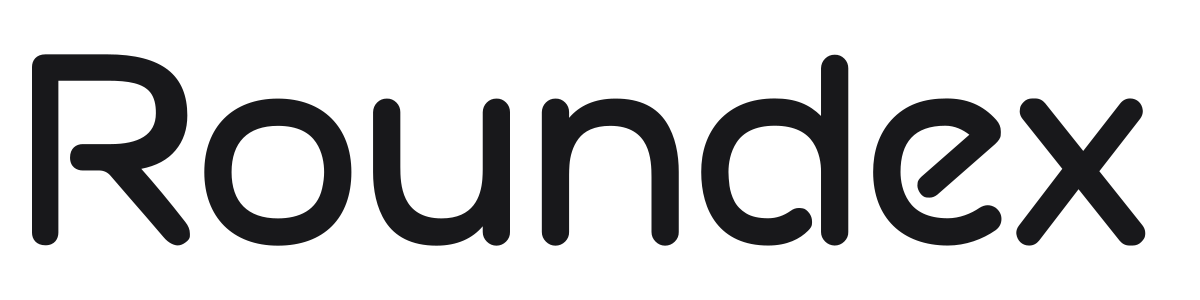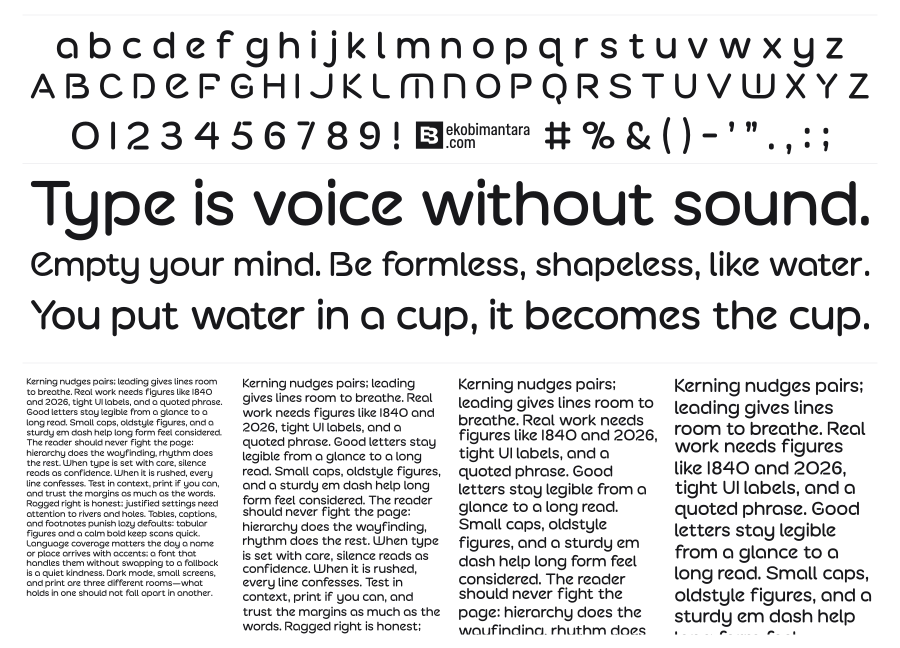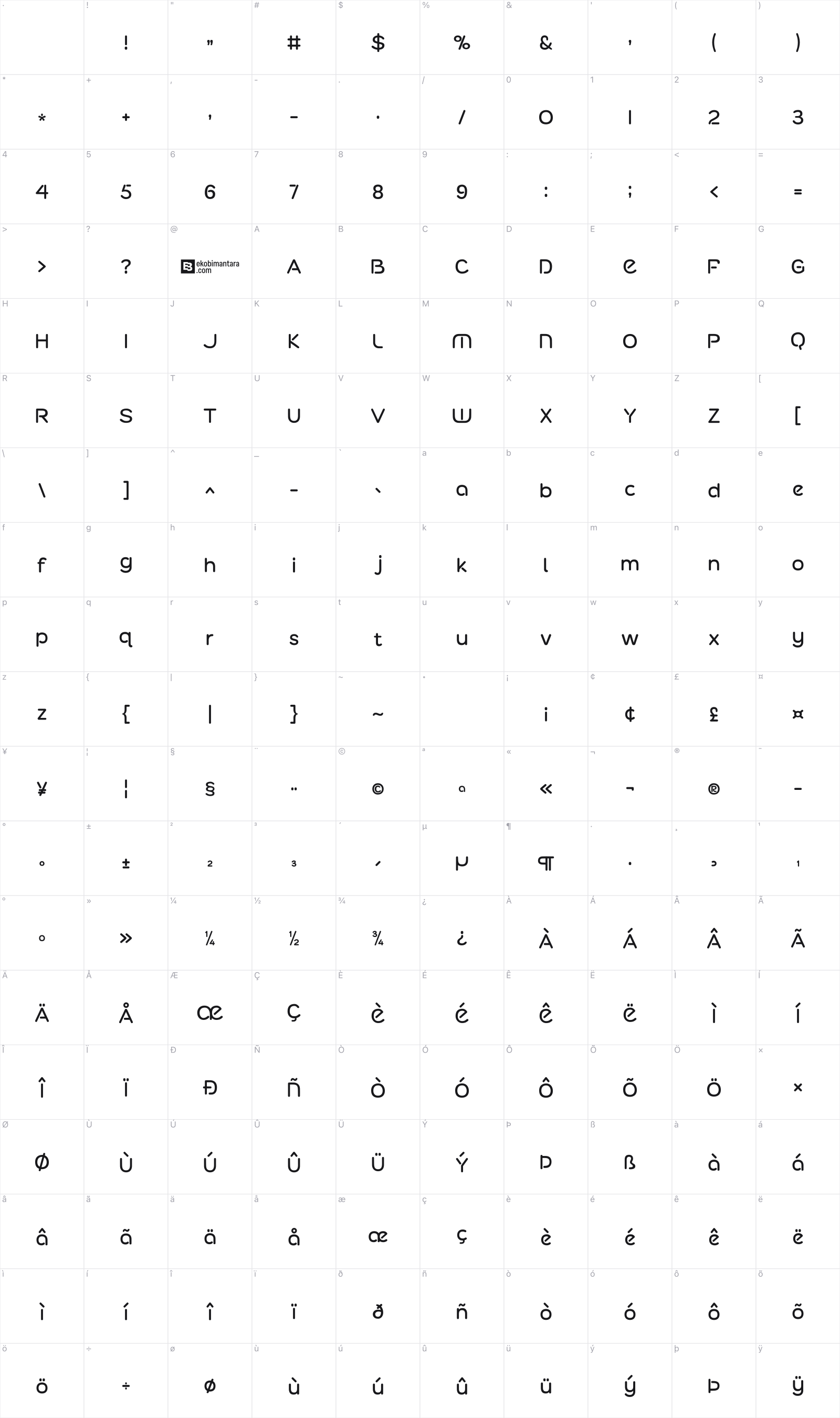
Roundex
Roundex is a contemporary rounded sans-serif built on near-monoweight strokes and softly finished terminals. The generous apertures and smooth curves strike a balance between geometric precision and human warmth. It works across branding, app UI, packaging, and anywhere a clean but approachable voice is needed.